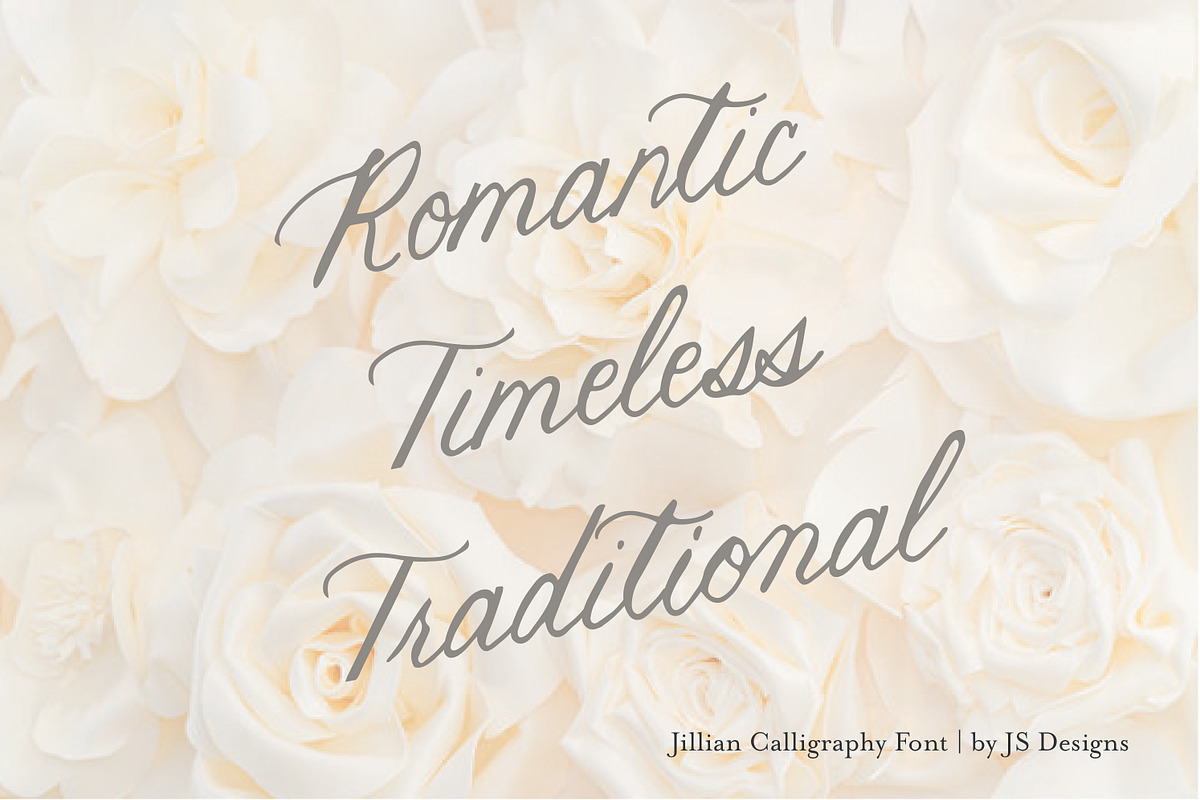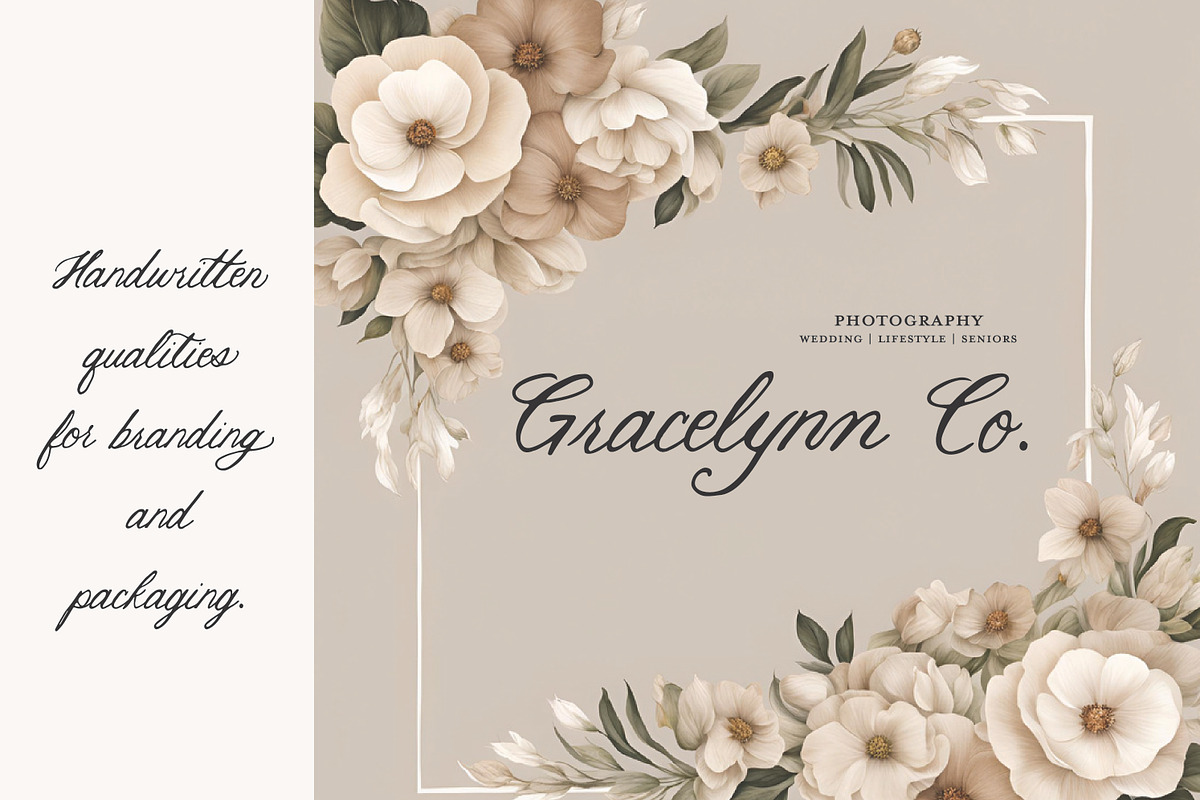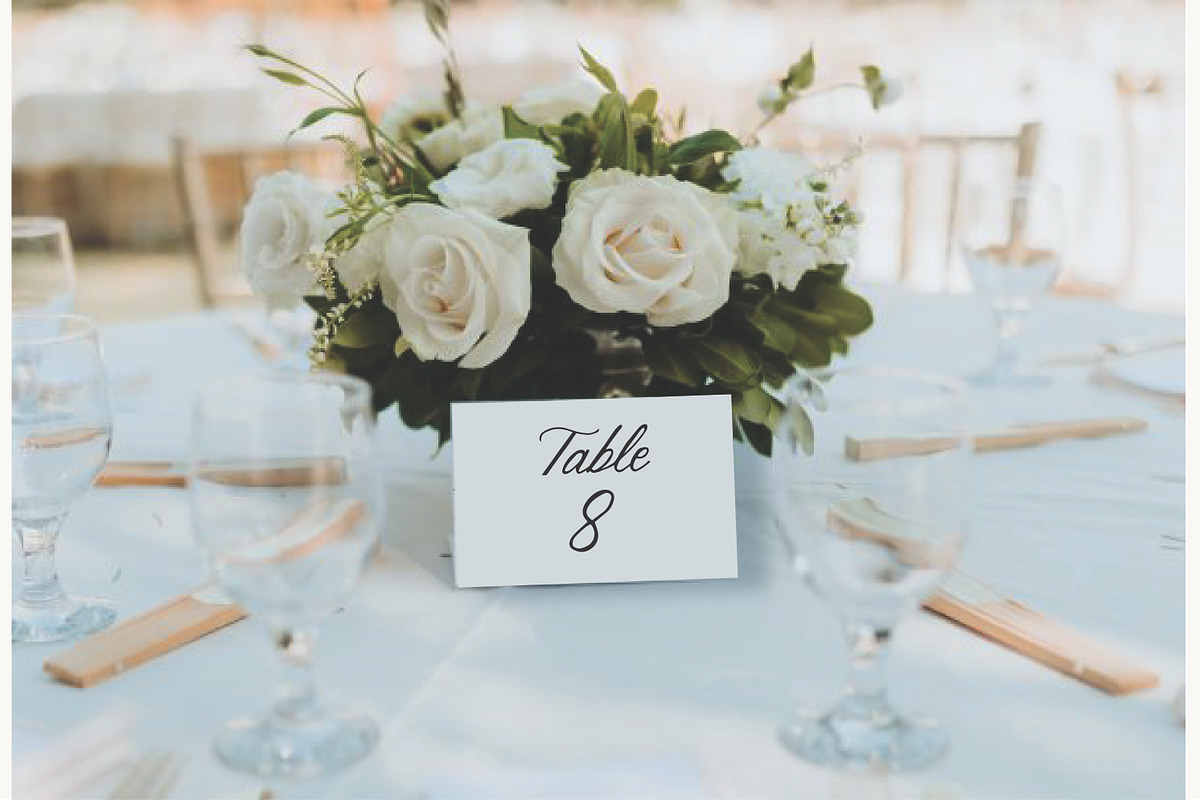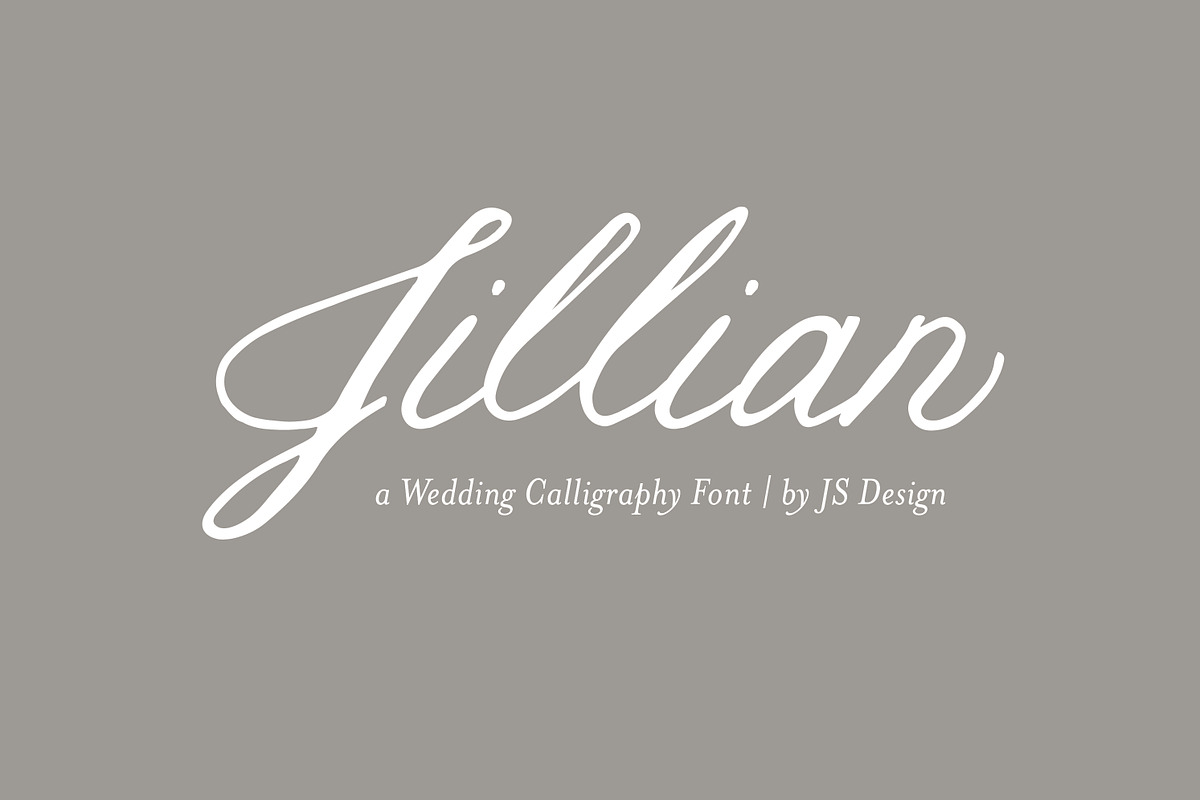
Jillian | Wedding Calligraphy Font
Jillian is a calligraphy font great for weddings, invitations, stationery, websites, logos, packaging, and more. It's readable for addresses, headline text, and signage. The alternate endings, beginnings, and stylistic alternates give this font that handwritten look.
Those who enjoy a hand-written, calligraphy font, will appreciate this design asset. It features extra ligatures so you can further customize the font.